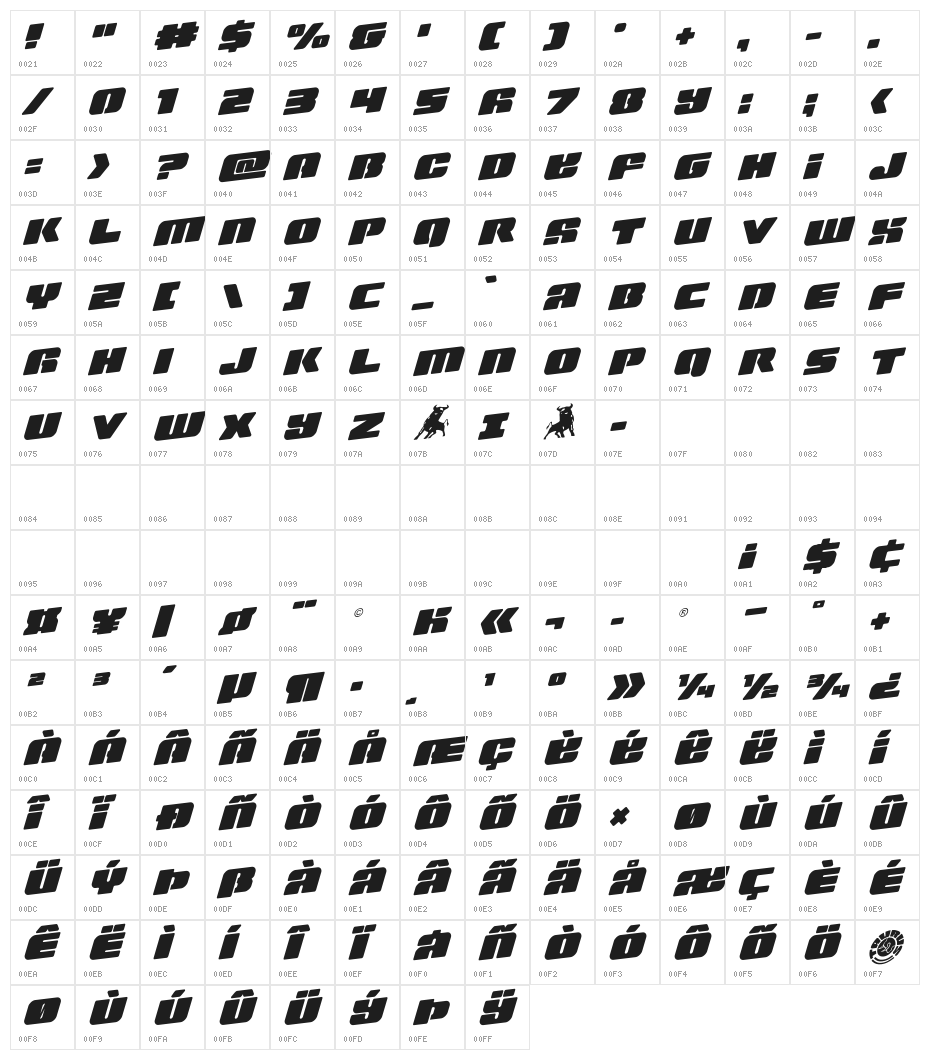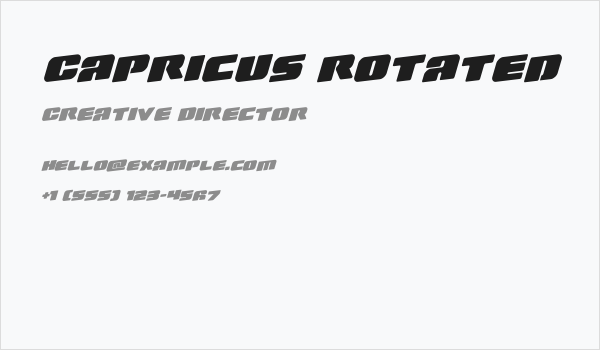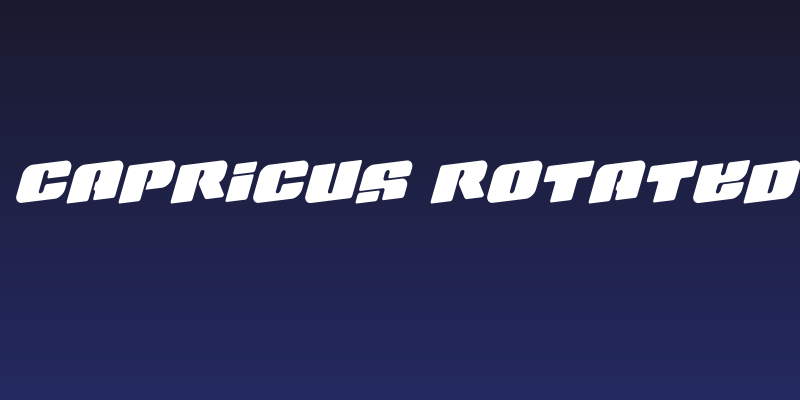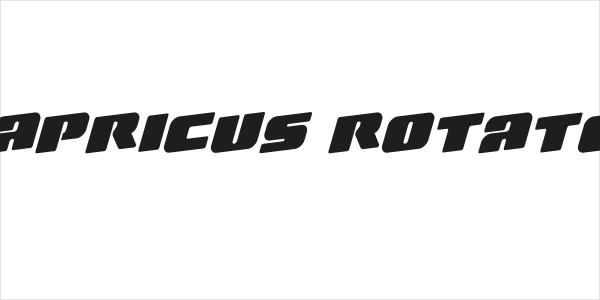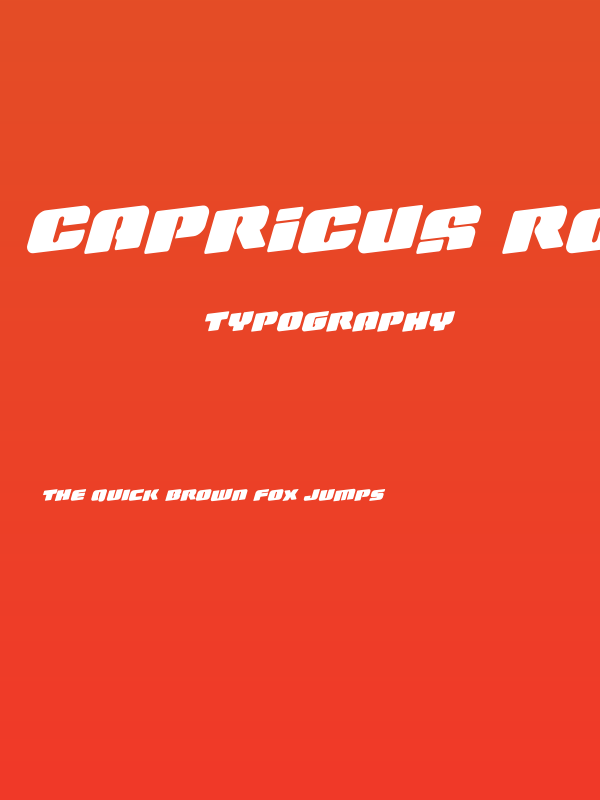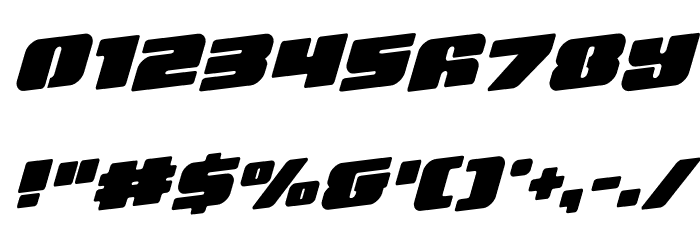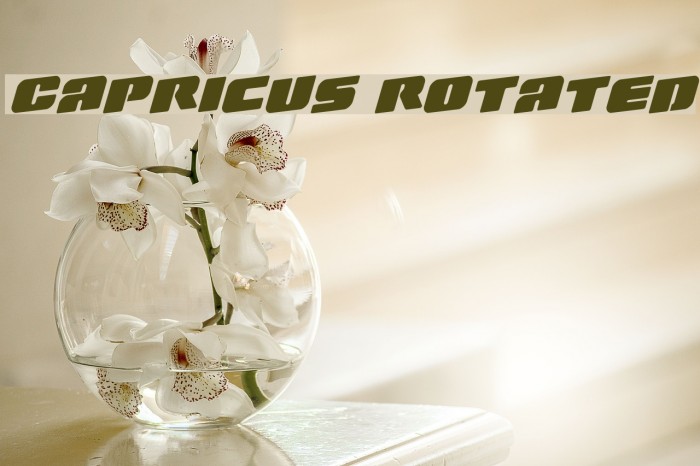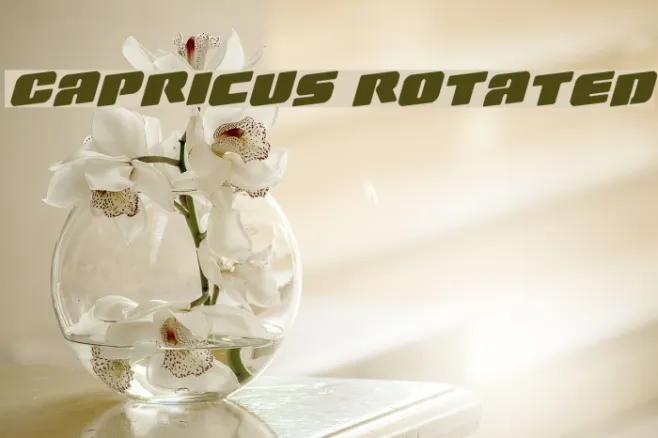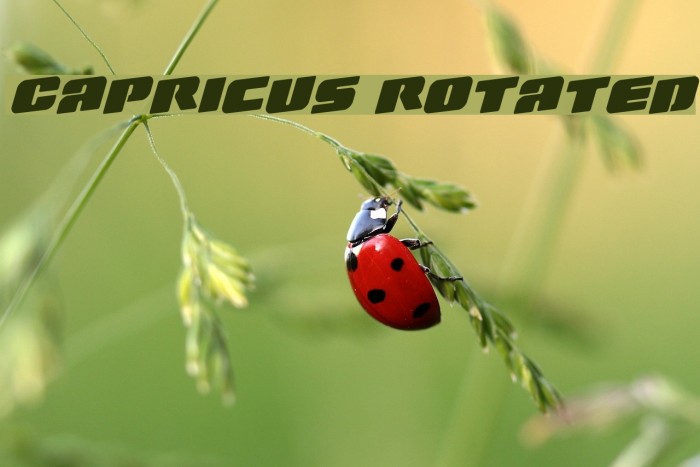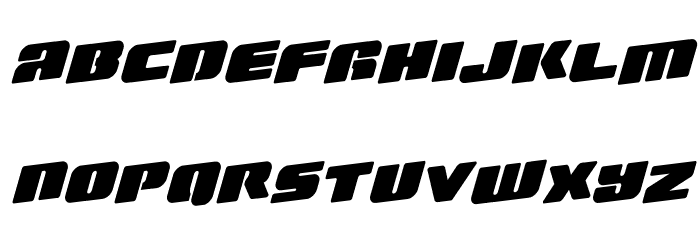
Capricus Rotated Font
Capricus Rotated Description
This font features a bold and dynamic design with a strong slant, giving it a sense of motion and energy. The characters are thick and robust, with angular cuts and sharp edges that create a futuristic and edgy appearance. The uppercase and lowercase letters maintain a consistent style, with the lowercase slightly smaller but equally bold. Numbers and special characters follow the same design principles, ensuring uniformity across all glyphs. The font's unique style makes it stand out, ideal for projects that require a modern and impactful look.
| Proposed Projects | Ideal for sports branding, video game titles, sci-fi posters, and dynamic logos. |